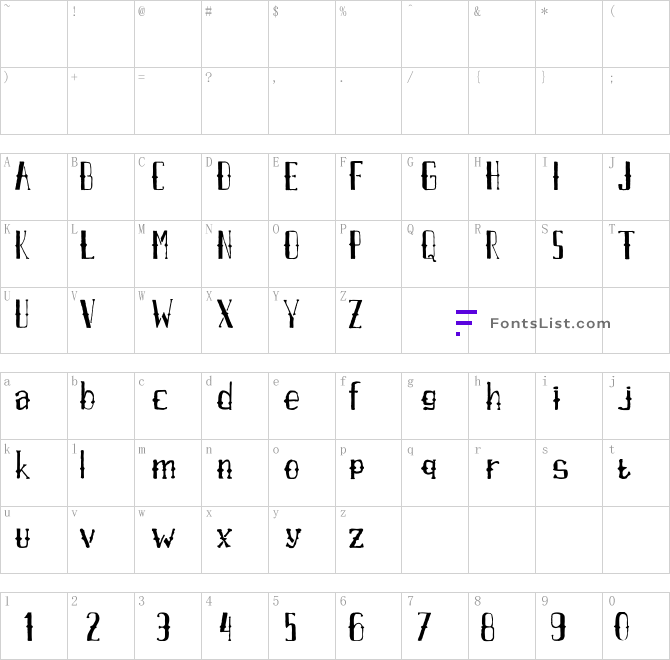
- Font Name:AXR Airpena Free Version
AXR-Airpena-Free-Version.ttf is a very beautiful artistic font, AXR-Airpena-Free-Version.ttf is widely used in the design and printing of various books and pictures,AXR-Airpena-Free-Version.ttf has a strong visual impact,AXR-Airpena-Free-Version.ttf is a commonly used font in newspapers, magazines and books, and is used in posters, e-commerce Poster design, store design, logo design, font design and other fields.AXR-Airpena-Free-Version.